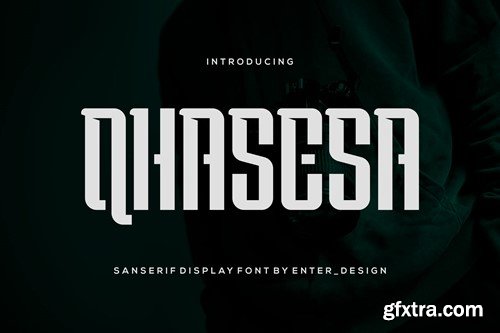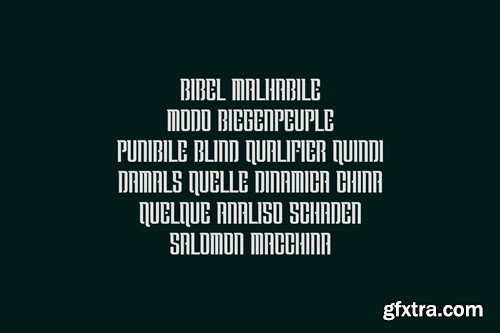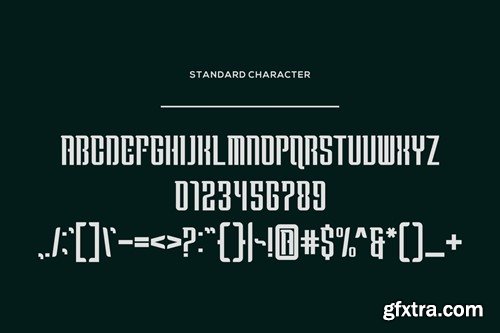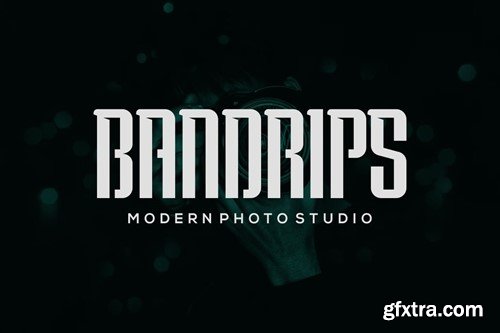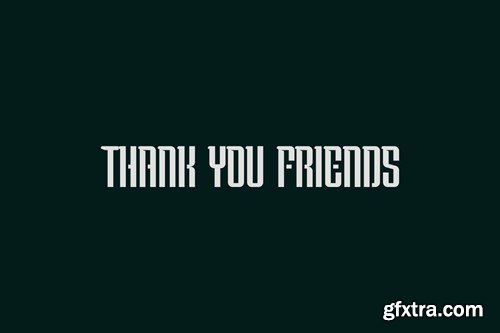
Qhasesa font
Introducing our new product Qhasesa Font - Modern Font is a bold and authentic display font. The font is suitable for any branding project like logo, esport, and many more. outstanding in a wide range of contexts. availlable